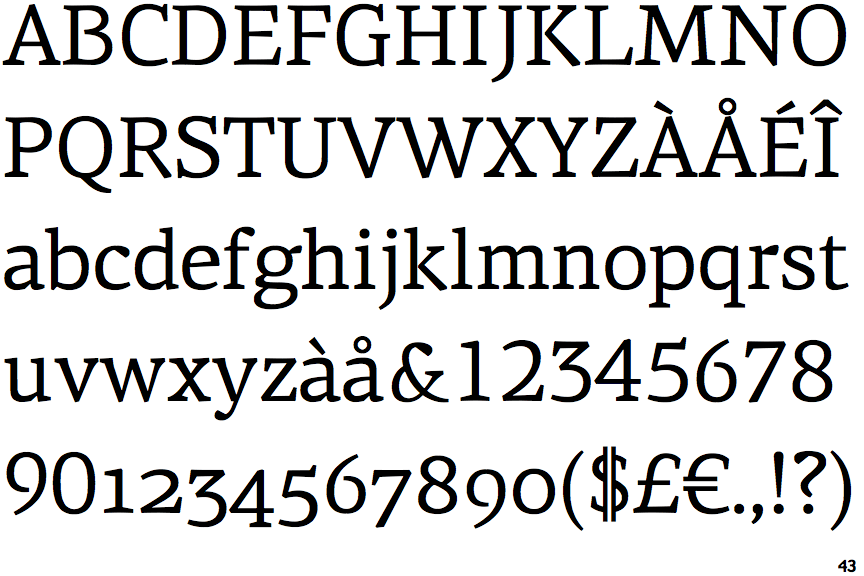
PF Centro Serif
An ideal Companion to the fonts PF Centro Slab and PF Centro Sans.
Designer: Panos Vassiliou Year: 2006 Publisher: Parachute An OpenType font that includes both lining and oldstyle figures. |